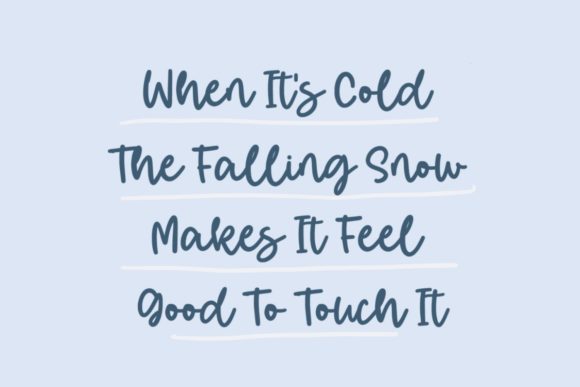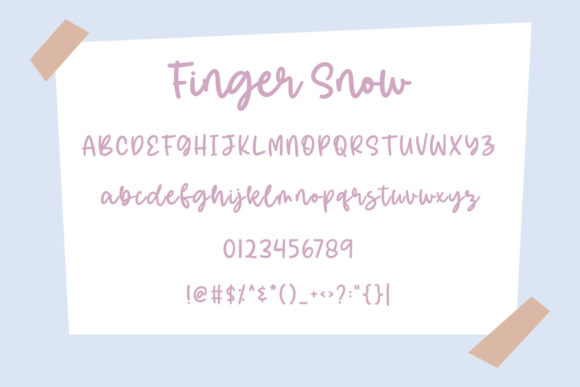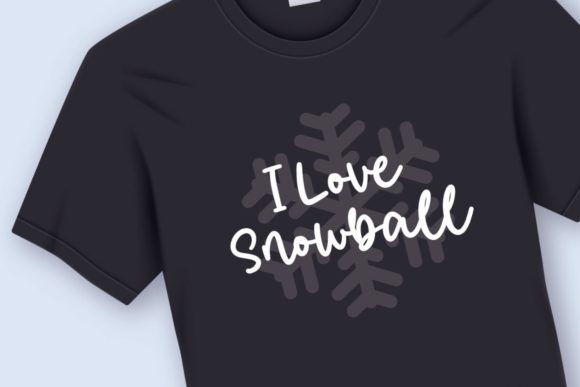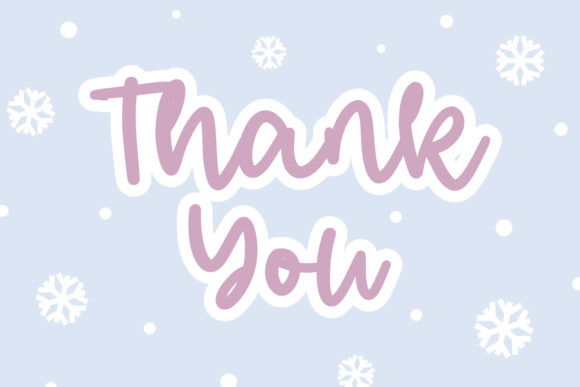
Finger Snow Font: The Perfect Choice for Creative Projects
Finger Snow Font is a delightful script font that exudes a friendly and approachable feel. Its charming and whimsical design makes it an ideal choice for a wide range of creative projects, from logos and branding to social media posts, invitations, and DIY crafts. In this article, we’ll explore the features and benefits of Finger Snow Font, and how it can elevate your designs to the next level.
What is Finger Snow Font?
Finger Snow Font is a beautiful script font that boasts an incredibly friendly feel. Its unique design is characterized by flowing lines, gentle curves, and a playful vibe that makes it perfect for creative projects that require a personal touch. Whether you’re a designer, crafter, or DIY enthusiast, Finger Snow Font is sure to capture your heart and inspire your imagination.
Features of Finger Snow Font
- Cute and Friendly Design: Finger Snow Font features a charming and whimsical design that is sure to delight audiences of all ages.
- Versatile: This font is perfect for a wide range of creative projects, from logos and branding to social media posts, invitations, and DIY crafts.
- Elegant and Playful: Finger Snow Font strikes the perfect balance between elegance and playfulness, making it suitable for both formal and informal designs.
- Easy to Read: The font’s clear and legible design ensures that your text is easy to read, even at small sizes.
Uses of Finger Snow Font
Finger Snow Font is a versatile font that can be used for a wide range of creative projects, including:
- Logos and Branding: Create a unique and memorable logo for your business or brand with Finger Snow Font.
- Social Media Posts: Add a personal touch to your social media posts and make them stand out with this beautiful font.
- Invitations: Create beautiful and elegant invitations for special occasions, such as weddings, birthdays, and baby showers.
- DIY Crafts: Use Finger Snow Font to add a personal touch to your DIY crafts, such as handmade cards, gift tags, and scrapbook pages.
- Stationery: Create custom stationery, such as notebooks, journals, and letterheads, with Finger Snow Font.
Benefits of Using Finger Snow Font
Using Finger Snow Font can bring numerous benefits to your creative projects, including:
- Unique and Memorable Designs: Finger Snow Font’s unique design ensures that your projects stand out and are memorable.
- Emotional Connection: The font’s friendly and approachable feel helps create an emotional connection with your audience.
- Time-Saving: Finger Snow Font is easy to use and saves you time and effort in creating beautiful designs.
- Professional-Looking Designs: The font’s elegant and playful design ensures that your projects look professional and polished.
Tips for Using Finger Snow Font
Here are some tips for using Finger Snow Font effectively:
- Pair with Other Fonts: Pair Finger Snow Font with other fonts to create a unique and visually appealing design.
- Experiment with Colors: Experiment with different colors to find the perfect combination that matches your brand or project’s theme.
- Use for Headings and Titles: Use Finger Snow Font for headings and titles to add a personal touch and make your text stand out.
- Keep it Simple: Keep your design simple and avoid clutter to ensure that Finger Snow Font is the focal point.